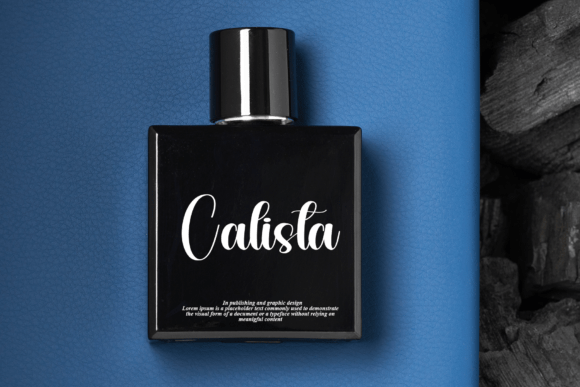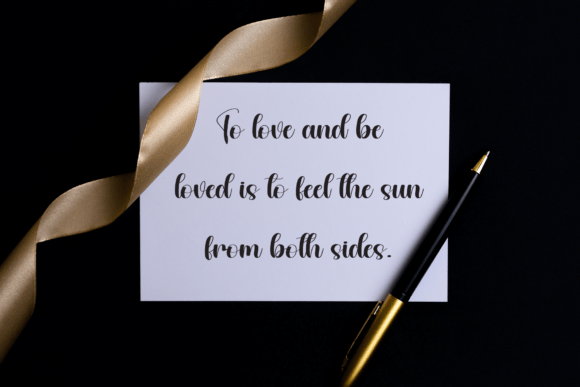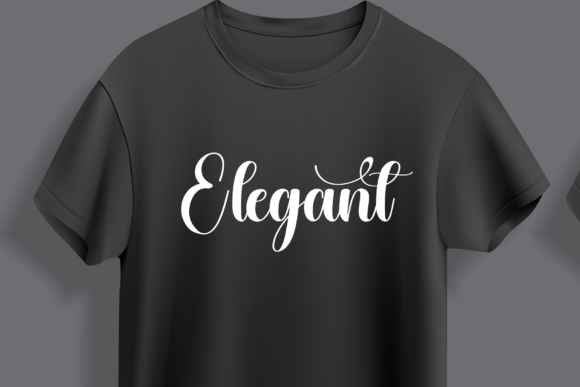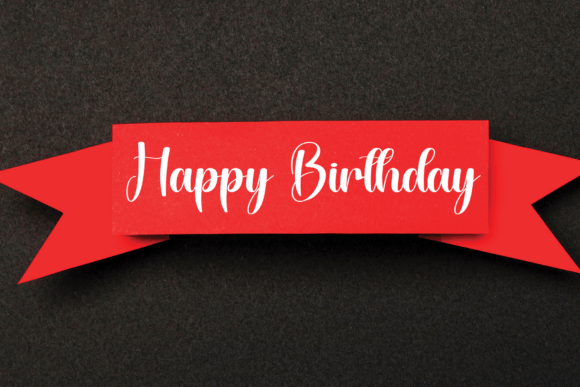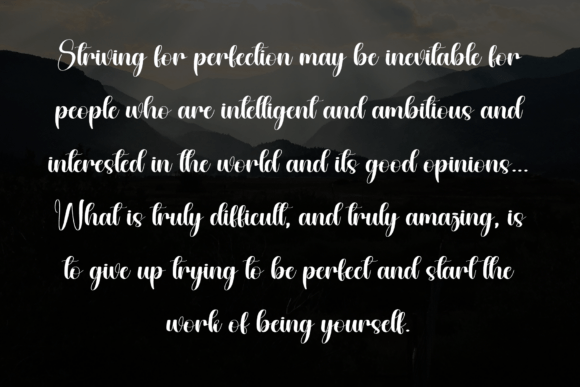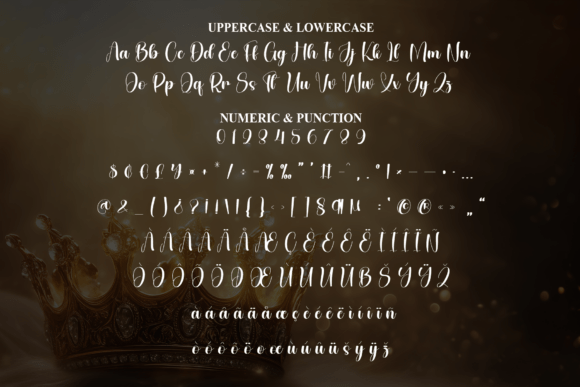
Introduction to Kingday Font
Kingday is a regal handwritten script font with flowing lines and luxurious curves.
It’s crafted for elegance, perfect for branding, invitations, beauty products, and anything that requires a touch of royalty or sophistication With its modern script style, Kingday strikes a balance between chic and classy.